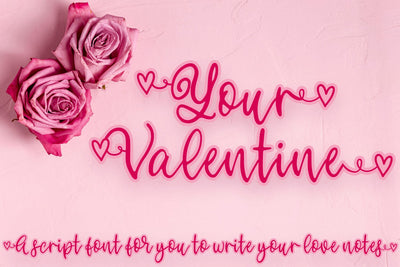
Your Valentine
Are you ready to add a touch of romance to your designs? Introducing Your Valentine, the perfect handwritten script font for all your love notes and romantic projects! With its beautiful calligraphy writing and whimsical heart attached to it, Your Valentine is sure to set hearts aflutter.
Whether you're creating wedding invitations, love letters, or greeting cards, Your Valentine is the perfect font for expressing your feelings. This font has been carefully crafted to convey elegance, charm, and grace, and its delicate strokes will give your text a truly intimate feel.
Your Valentine is easy to read, yet has an air of sophistication that will elevate your designs to the next level. And with its unique heart accent, this font is perfect for creating romantic designs that will leave a lasting impression.